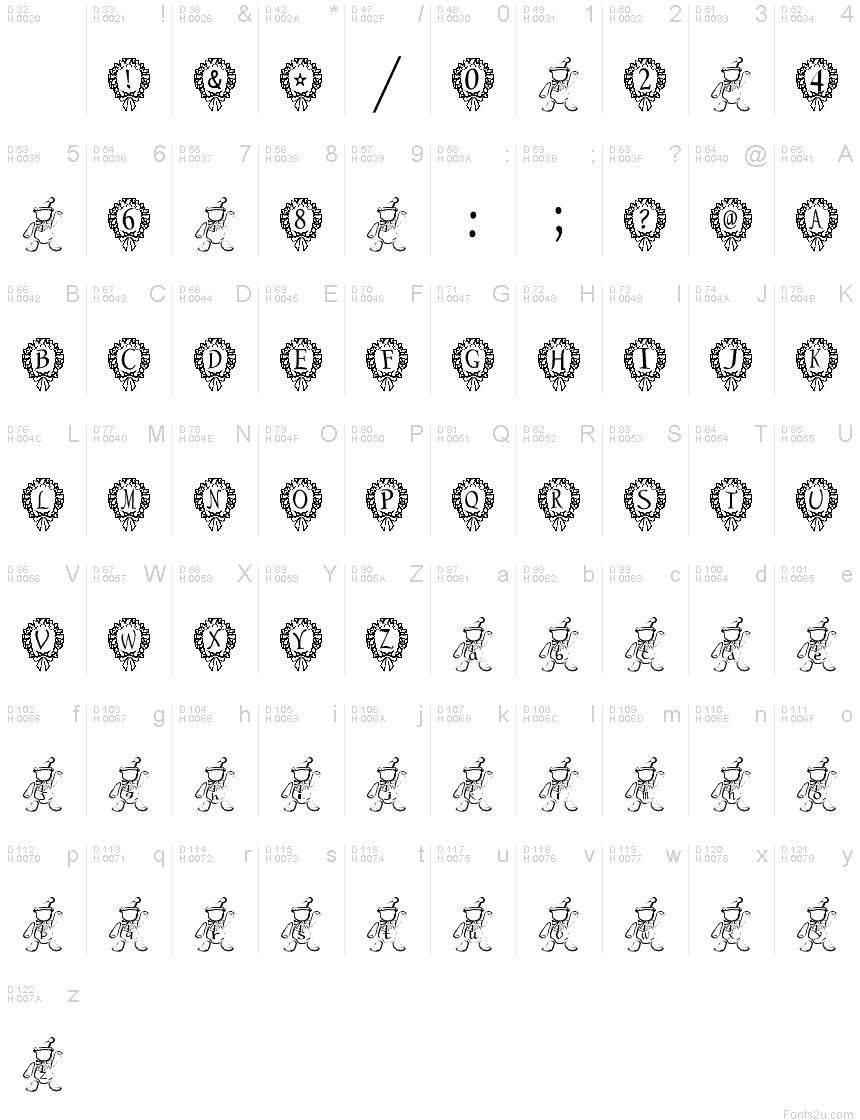
P-xmas Font is a free Christmas motif display font built from little holiday icons rather than conventional lettering. The letters read as playful ornaments: one sits inside a ribbon-tied wreath, while others become toy-like figures in winter hats, giving the whole font a handmade festive, slightly doodled charm.
This free font fits seasonal cards, gift tags, Advent flyers, craft fair posters, scrapbook titles, and December social graphics where the lettering itself can carry the theme. It works best in short words, title cards, and monogram-style moments, because each letter behaves like a small Christmas illustration with its own character.
P-xmas Font